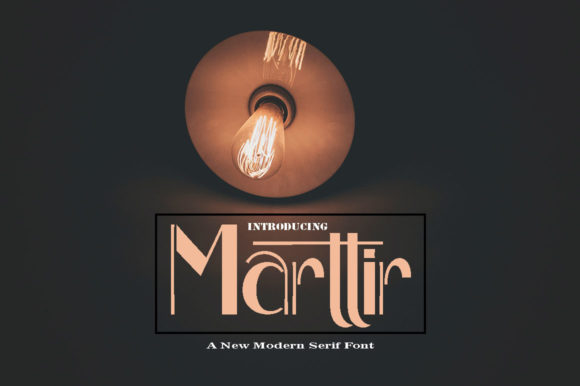
Journey into the world of Marttir Font, an unparalleled display font crafted by the artistic hands of AsaharStudio. This font is a masterpiece, a fusion of elegance and uniqueness, designed to elevate your creative visions to unprecedented heights.
With Marttir Font, you hold the key to unlocking a world of possibilities. Whether you're a seasoned designer or just starting your creative journey, this font will empower you to transform your ideas into stunning realities. Its meticulous design ensures that every letter, every stroke, and every curve is a testament to artistry, adding a touch of sophistication to your projects.
Dive into the depths of Marttir Font's versatility, and discover its boundless applications. From captivating headlines that demand attention to elegant body text that invites readers into your world, this font effortlessly adapts to your every need. Create logos that exude professionalism, design posters that ooze creativity, or craft social media graphics that ignite engagement. The possibilities are endless, limited only by the boundaries of your imagination.
Experience the allure of Marttir Font in the realm of news and headlines. Its bold and striking presence commands attention, ensuring that your messages are seen, heard, and remembered. Craft news articles that captivate readers from the very first word, headlines that ignite curiosity, and titles that leave a lasting impression. With Marttir Font, your words will resonate with power and elegance, leaving an indelible mark on the minds of your audience.
Embrace the beauty of Marttir Font and witness the transformation of your creative endeavors. Let its timeless aesthetics enhance your designs, its versatility fuel your imagination, and its captivating presence elevate your messages to new heights.